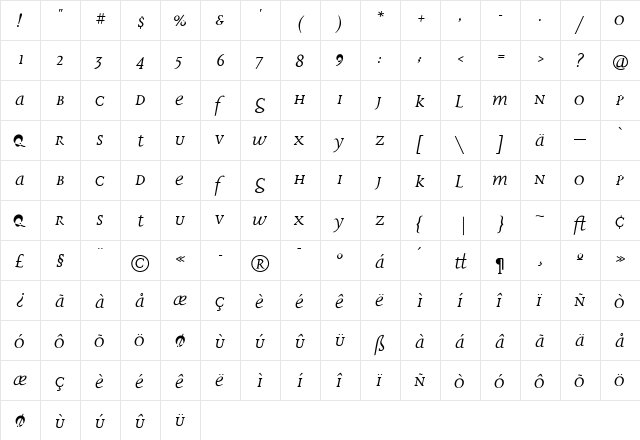
Disturbance Italic
Design Context for Disturbance Typeface
Disturbance is a composed and adaptable typeface that performs quietly and consistently across a wide range of design contexts. Its italic angle brings a sense of urgency and motion to the letterforms.
Pro Tip: Use Disturbance for emphasis, pull quotes, and subheadings where its slanted energy can add rhythm to the layout.